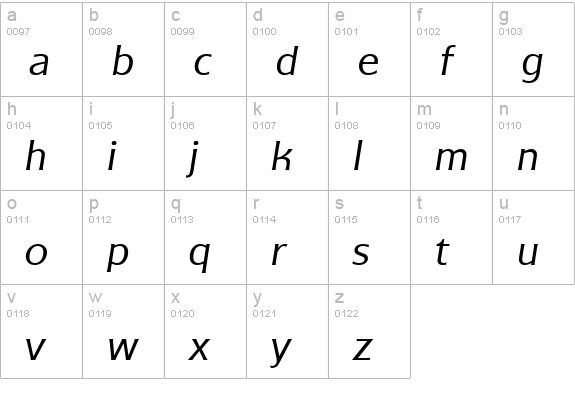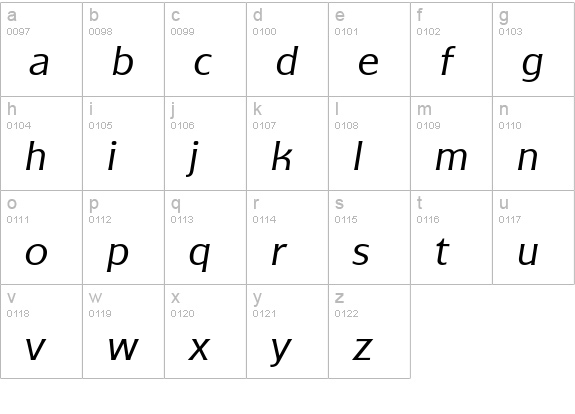
BluejackURWTLig Italic Font Details
BluejackURWTLig Italic is a distinctive, italic variant in the BluejackURWTLig typeface family \xE2\x80\x94 well suited to design and typography projects.
BluejackURWTLig Italic is a beautifully crafted font that exudes elegance and sophistication. Its sleek and stylish design makes it perfect for adding a touch of class to any project. The italicized letters add a sense of dynamism and flair, making this font ideal for conveying a sense of creativity and individuality. And the best part? BluejackURWTLig Italic is completely free to download at FontsMarket.com. Whether you're working on a professional design project or simply looking to spice up your personal creations, this font is a fantastic choice. Don't miss out on the opportunity to enhance your work with this stunning typeface. Download BluejackURWTLig Italic now and let your creativity shine!